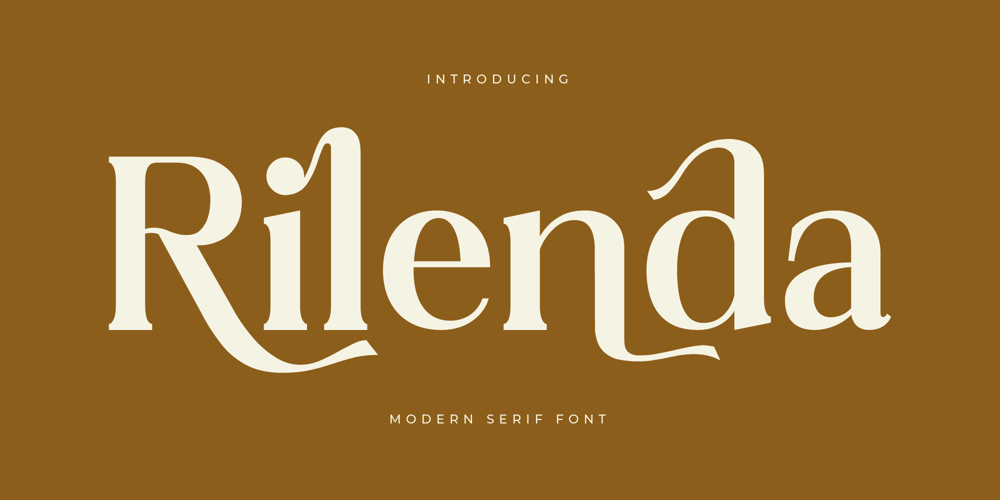
Rilenda Font Family was designed by Heru Utama Putra and published by Letterena Studios. Rilenda contains 2 styles and family package options. Rilenda is a modern and stylish serif font. Its smooth curves and elegant appearance will come in handy when you need to create chic, feminine designs.